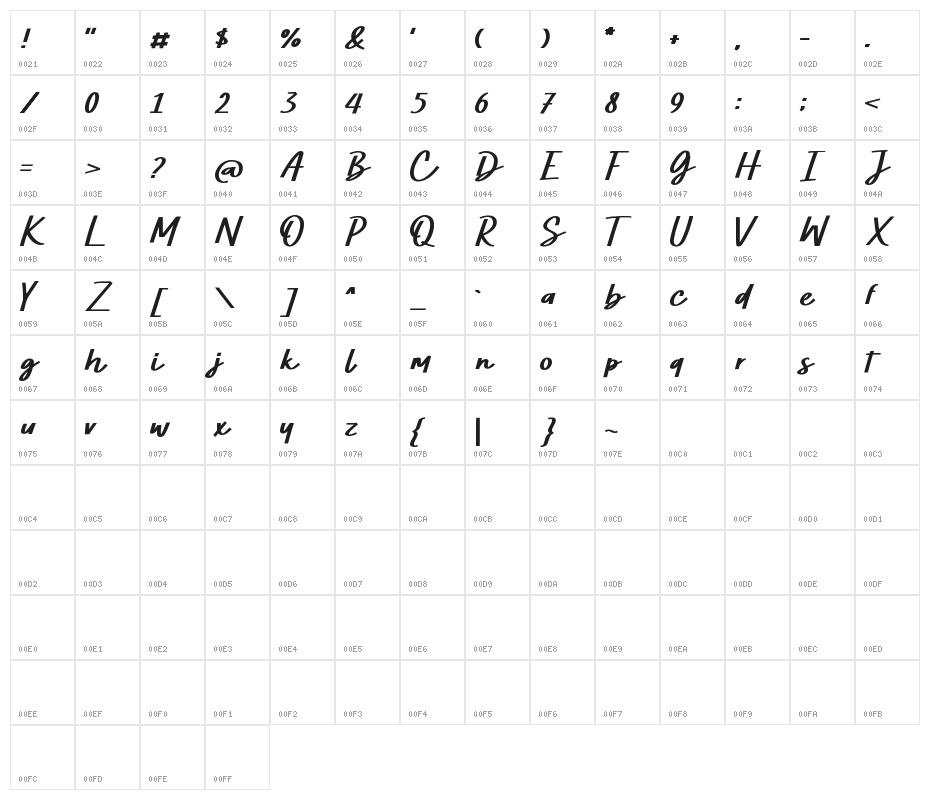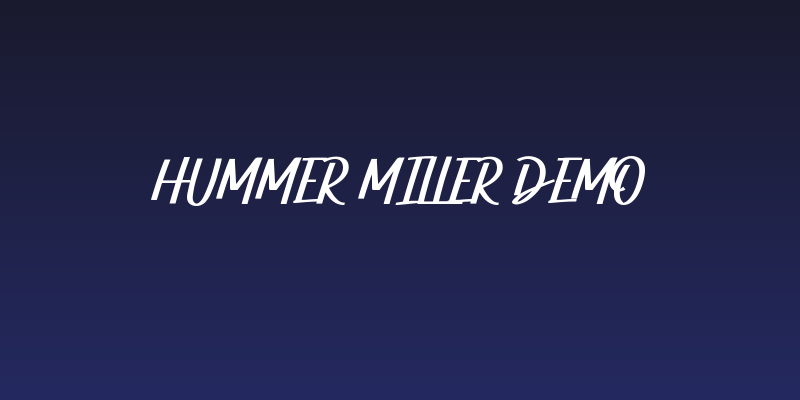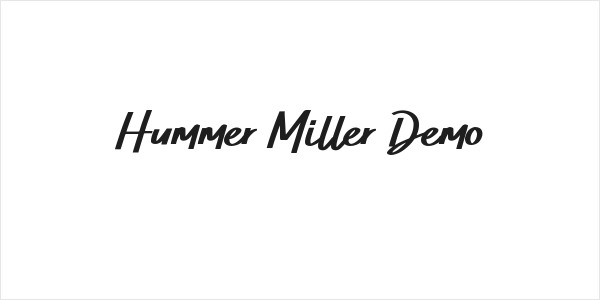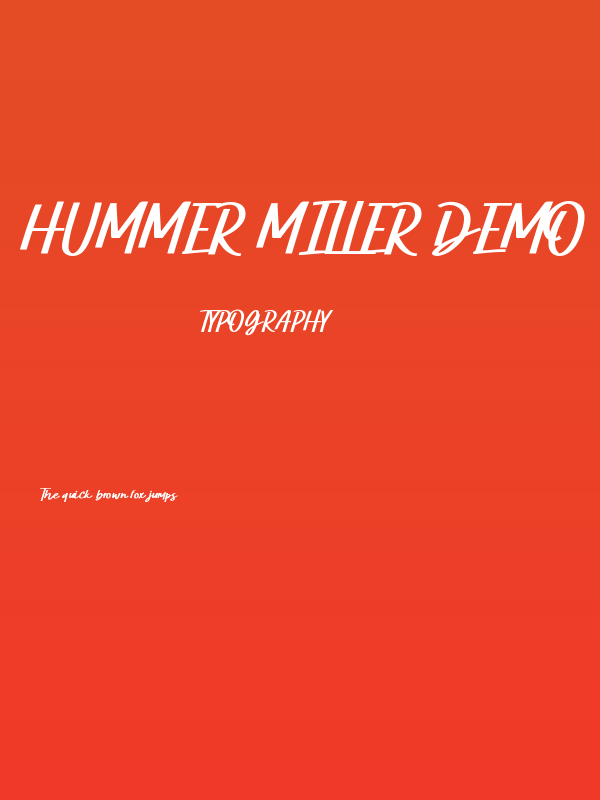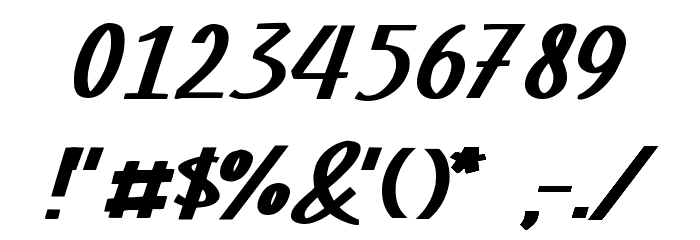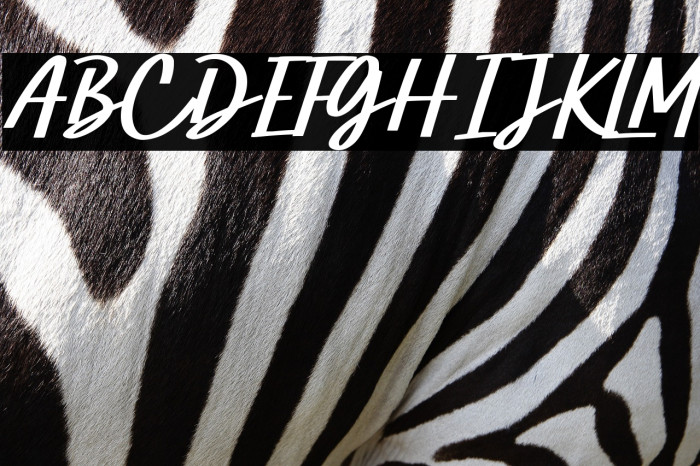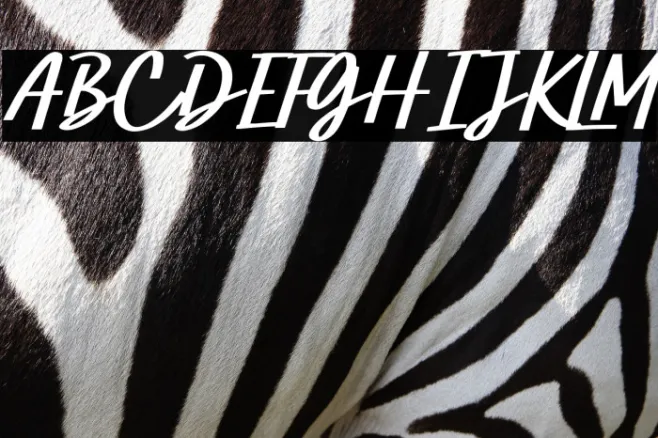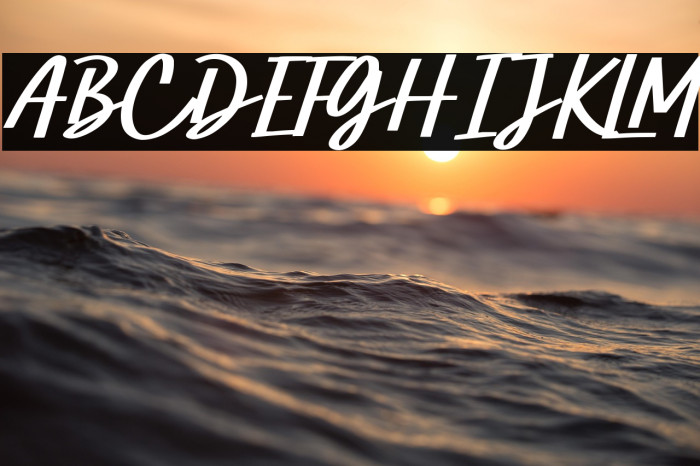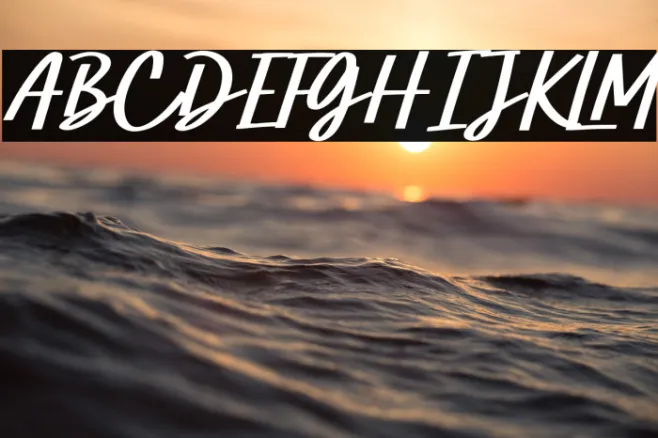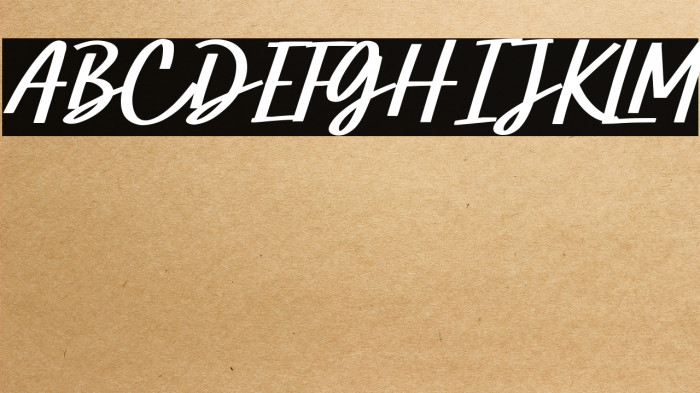
Hummer Miller Demo Font
Hummer Miller Demo Description
This font features a dynamic and energetic script style with a modern flair. The uppercase letters are tall and slightly slanted, giving a sense of movement and fluidity. The lowercase letters maintain a consistent flow, with some characters exhibiting unique loops and curves that add personality. The numerals are bold and clear, ensuring readability. Special characters are well-integrated, maintaining the overall aesthetic. This font's bold strokes and smooth transitions make it stand out, perfect for capturing attention while remaining legible.